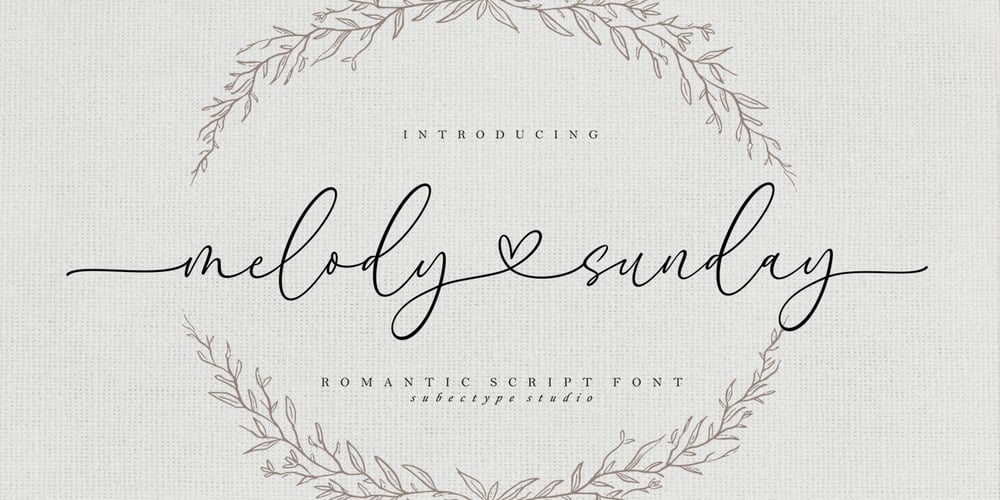
Melody Sunday Font Family was designed by Rangga Subekti and published by Subectype. Melody Sunday contains 1 styles and family package options. Melody Sunday is a Chic and Lovely Calligraphy font, described by an Love touch, perfect for your favorite projects.Fall in love with its incredibly distinct and timeless style and use it to create spectacular designs!”Melody Sunday” includes a full set of lovely uppercase and lowercase letters, multilingual symbols, numerals, punctuation and ligatures. Also it includes: Alternates letter for lowercase beginning and ending swashes, lowercase ending heart swashes, which serve to connect two words or letters (This is so perfect for invitations, monograms) Thank You,Subectype